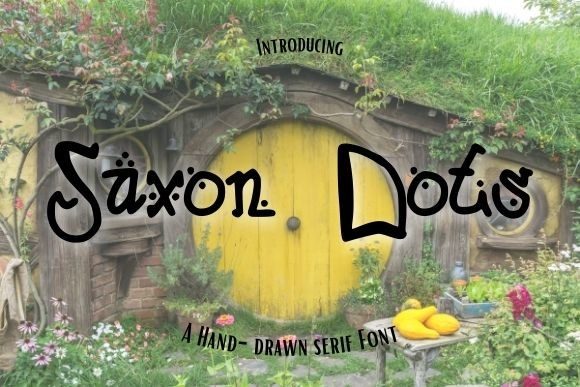
Step into a realm of enchanting typography with Saxon Dots, the font that will ignite your imagination and transport you to worlds unknown. This captivating display font, crafted with meticulous detail by KRLC Studio, is a masterpiece designed to cast a spell on your designs.
Saxon Dots is not just a font; it's a gateway to limitless creativity. Its whimsical and otherworldly aesthetic is perfect for conjuring up tales of fantasy and adventure. Imagine crafting eye-catching posters for your favorite horror movies, bringing depth and intrigue to Halloween-themed crafts, or creating t-shirts that evoke a sense of mystery and enchantment. With Saxon Dots, the possibilities are as endless as the pages of a captivating novel.
Indulge in the allure of Saxon Dots, a font that oozes character and distinction. Its intricate details and captivating curves will draw your readers into a world of enchantment, leaving them spellbound by your words. Whether you're a seasoned author weaving intricate tales or a designer conjuring up otherworldly graphics, Saxon Dots is the font that will enchant your audience and transport them to realms beyond their wildest dreams.
Unleash your imagination and embrace the captivating power of Saxon Dots. Let its magic flow through your designs, captivating your audience and leaving an unforgettable mark on their hearts and minds. Experience the transformative power of a font that speaks to the soul and ignites the fires of creativity within you.
Download Saxon Dots today and embark on a typographic adventure that will leave you spellbound. Every stroke, every curve, every letter is a testament to the power of imagination and the boundless possibilities that await those who dare to dream. Saxon Dots, the Font for Fantasy Novel, is more than just a font; it's an invitation to step into a world of limitless creativity and enchantment.